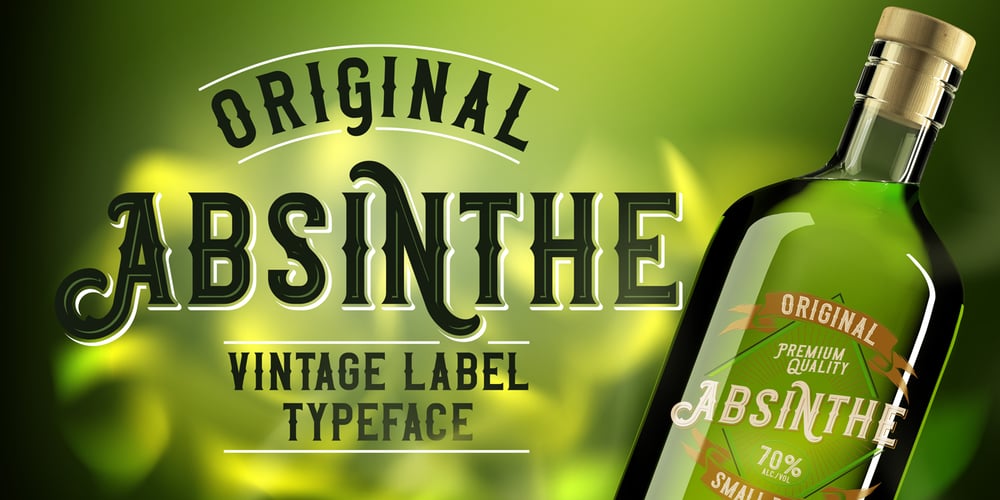
Original Absinthe
Original Absinthe font
Original Absinthe Font Family was designed by Oleg Voznyy and published by Vozzy. Original Absinthe contains 7 styles and family package options. Introducing a vintage look label font named “Original Absinthe”. This family includes seven styles – Regular, Inline, Shadow, Inline FX, Shadow FX, Full and Aged. The posters show the result of combining them. This font will be great for any retro design like poster, t-shirt, label, logo etc.